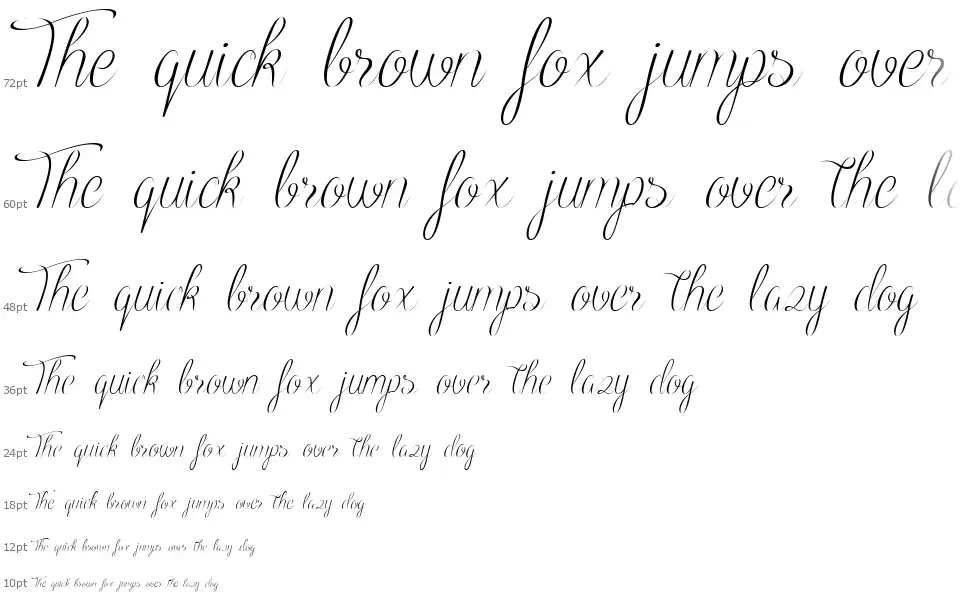
Black Olives Font Free Download . Black olives is a script type font that can be used on any device such as pc, mac, linux, ios and android. Installable on pc, mac, linux, ios, and android platforms. This font has 1 variant. Download black olives font · free for personal use · black olives is a script calligraphy font experiment. Black olives font download is available free from fontget. File size 0.05mb | black olives,script,roland huse,black olives,black,olives Discover the free black olives font at free font download ! A great choice for highlighting your design elements. Download black olives regular font | 1 style free font. Black olives by roland huse design. This font free for personal use. 378,598 downloads (4 yesterday) 4 comments demo. More fonts made by sharasfonts. Black olives font free download. Download olives font family · free for commercial use ·.
Download black olives font · free for personal use · black olives is a script calligraphy font experiment. 378,598 downloads (4 yesterday) 4 comments demo. File size 0.05mb | black olives,script,roland huse,black olives,black,olives Black olives font free download. This font has 1 variant. Installable on pc, mac, linux, ios, and android platforms. Black olives is a script type font that can be used on any device such as pc, mac, linux, ios and android. This font free for personal use. A great choice for highlighting your design elements. More fonts made by sharasfonts.
Black Olives Font Free Download Black olives is a script type font that can be used on any device such as pc, mac, linux, ios and android. Black olives by roland huse design. File size 0.05mb | black olives,script,roland huse,black olives,black,olives A great choice for highlighting your design elements. Download black olives font · free for personal use · black olives is a script calligraphy font experiment. This font free for personal use. Black olives font free download. This font has 1 variant. Black olives is a script type font that can be used on any device such as pc, mac, linux, ios and android. Discover the free black olives font at free font download ! 378,598 downloads (4 yesterday) 4 comments demo. Download olives font family · free for commercial use ·. Installable on pc, mac, linux, ios, and android platforms. More fonts made by sharasfonts. Black olives font download is available free from fontget. Download black olives regular font | 1 style free font.